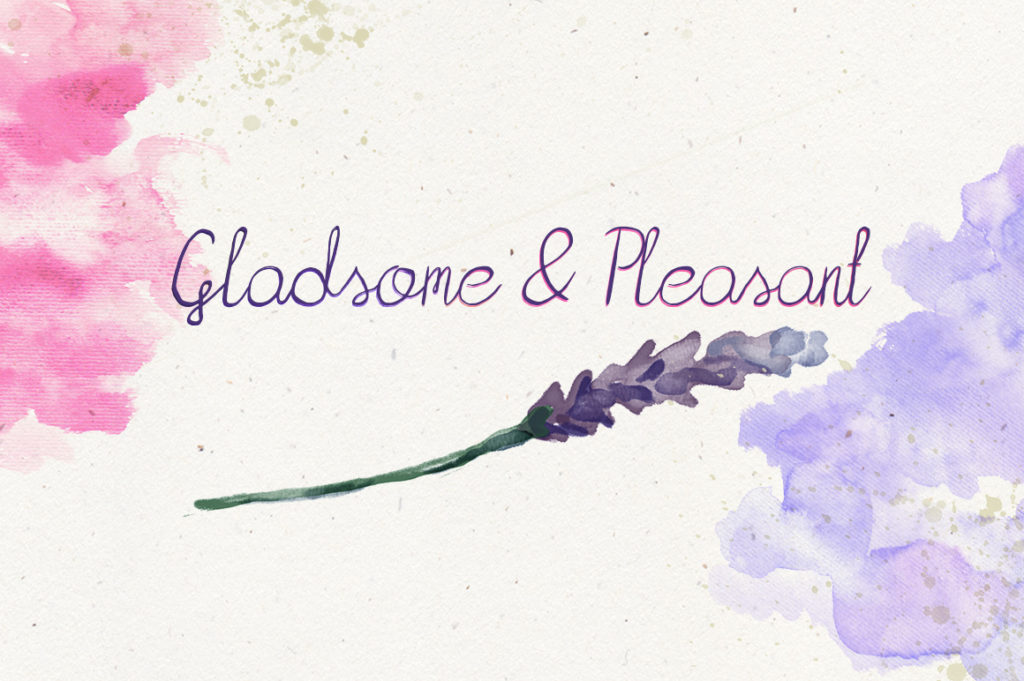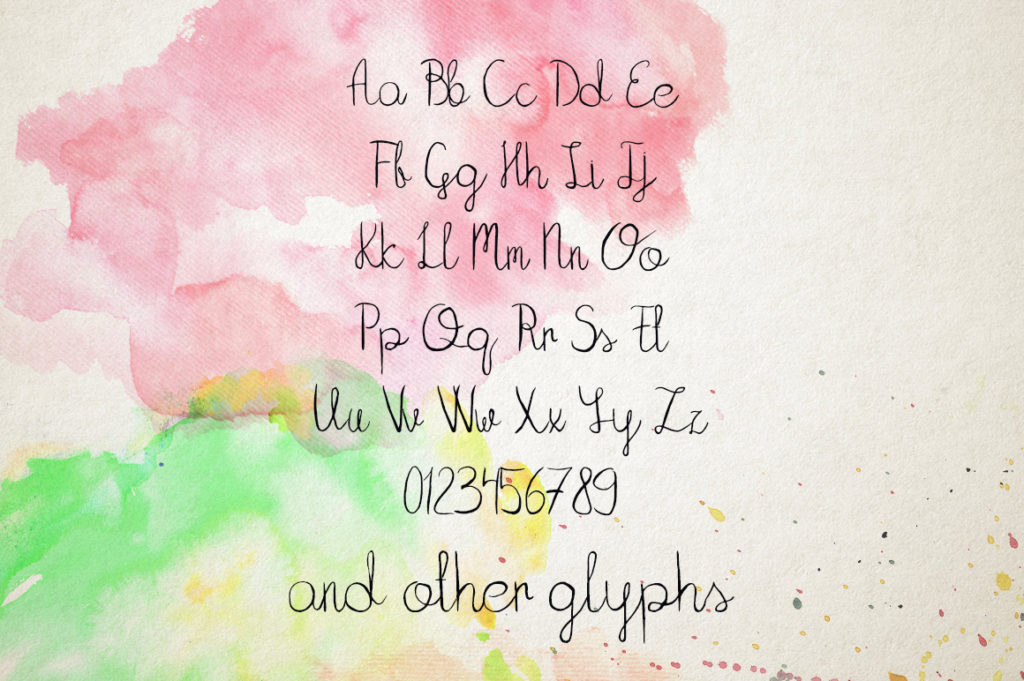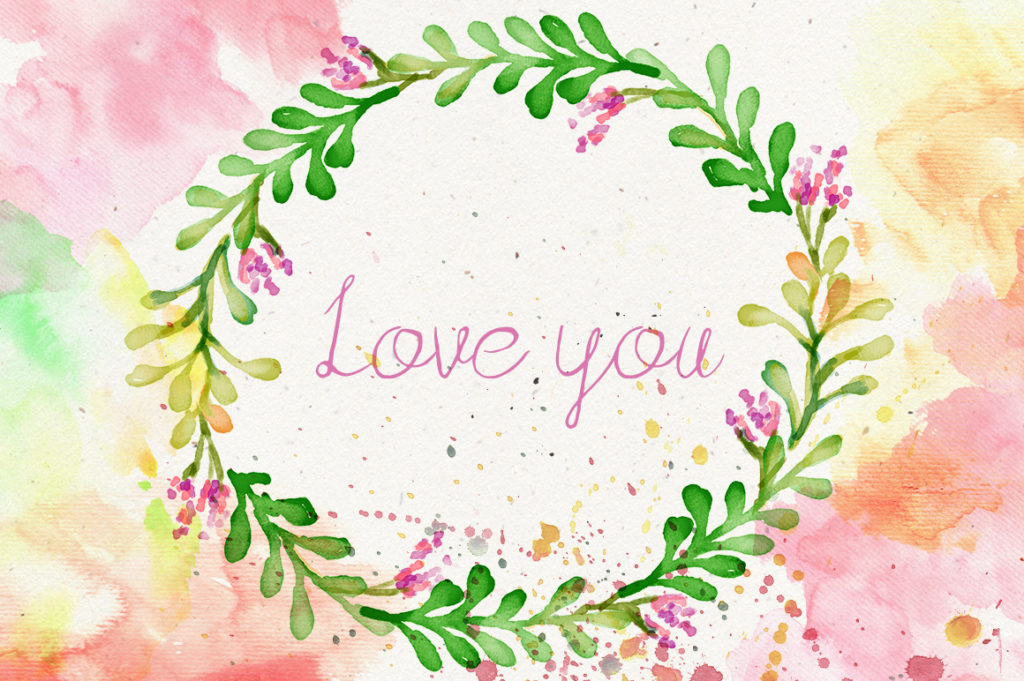
Rosemary Font
About Rosemary Font
This new Rosemary font is a fully handwritten, good, and simple one. Perfect for invitations, prints, posters, and much more!